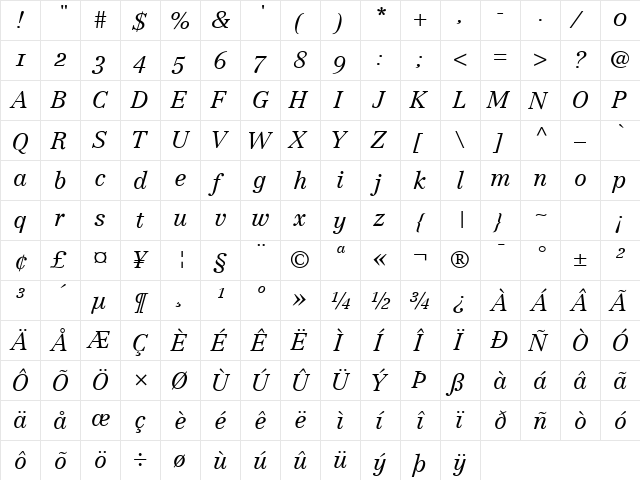
Century Reprise LightOS SSi Normal
Design Context for Century Reprise LightOS SSi Typeface
Century Reprise LightOS SSi offers clean, dependable letterforms without strong stylistic allegiance, making it a practical choice for designers who need flexibility. Its slender proportions lend an understated elegance to any composition.
Pro Tip: Pair Century Reprise LightOS SSi with a font of contrasting weight or personality to build a more expressive typographic hierarchy.